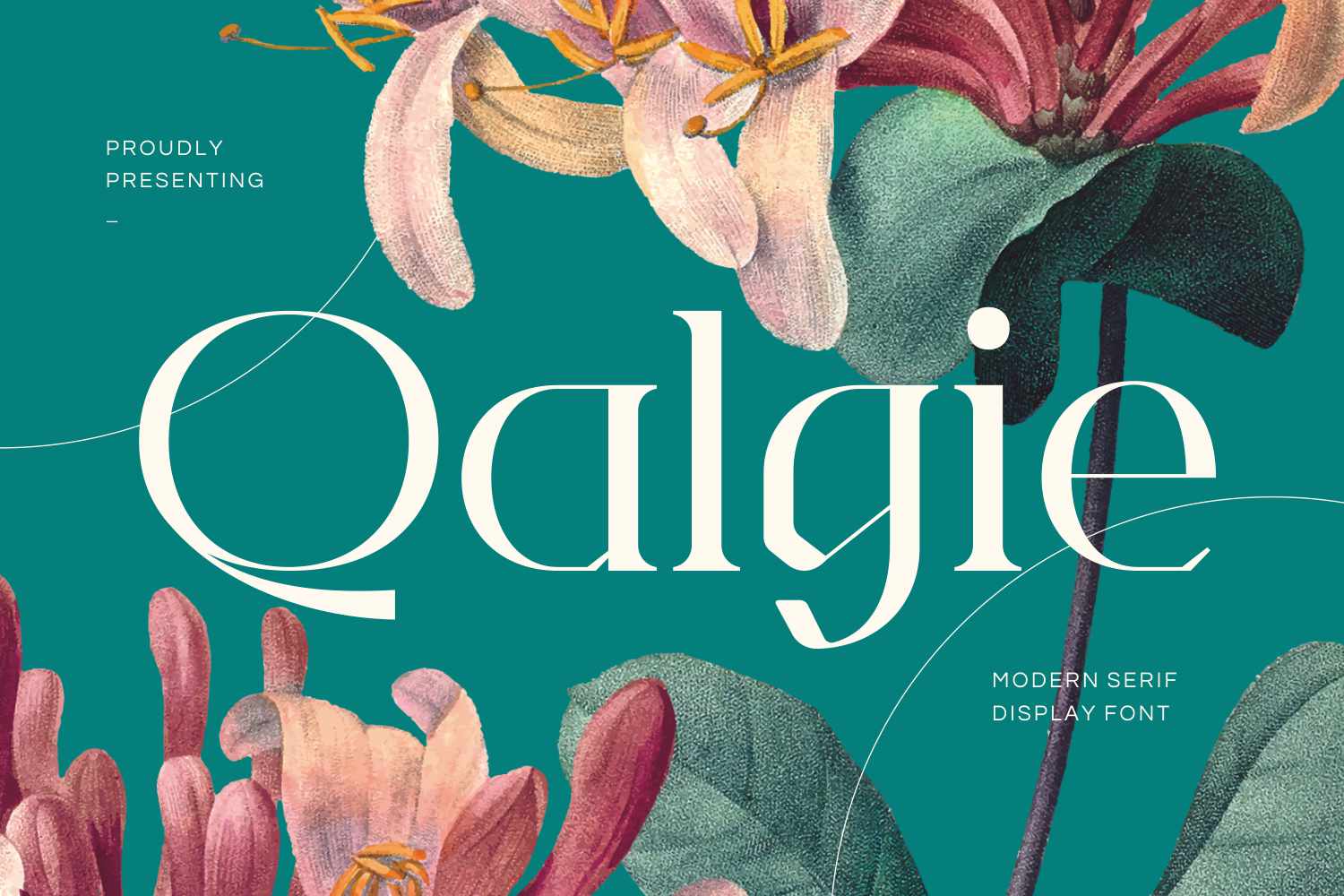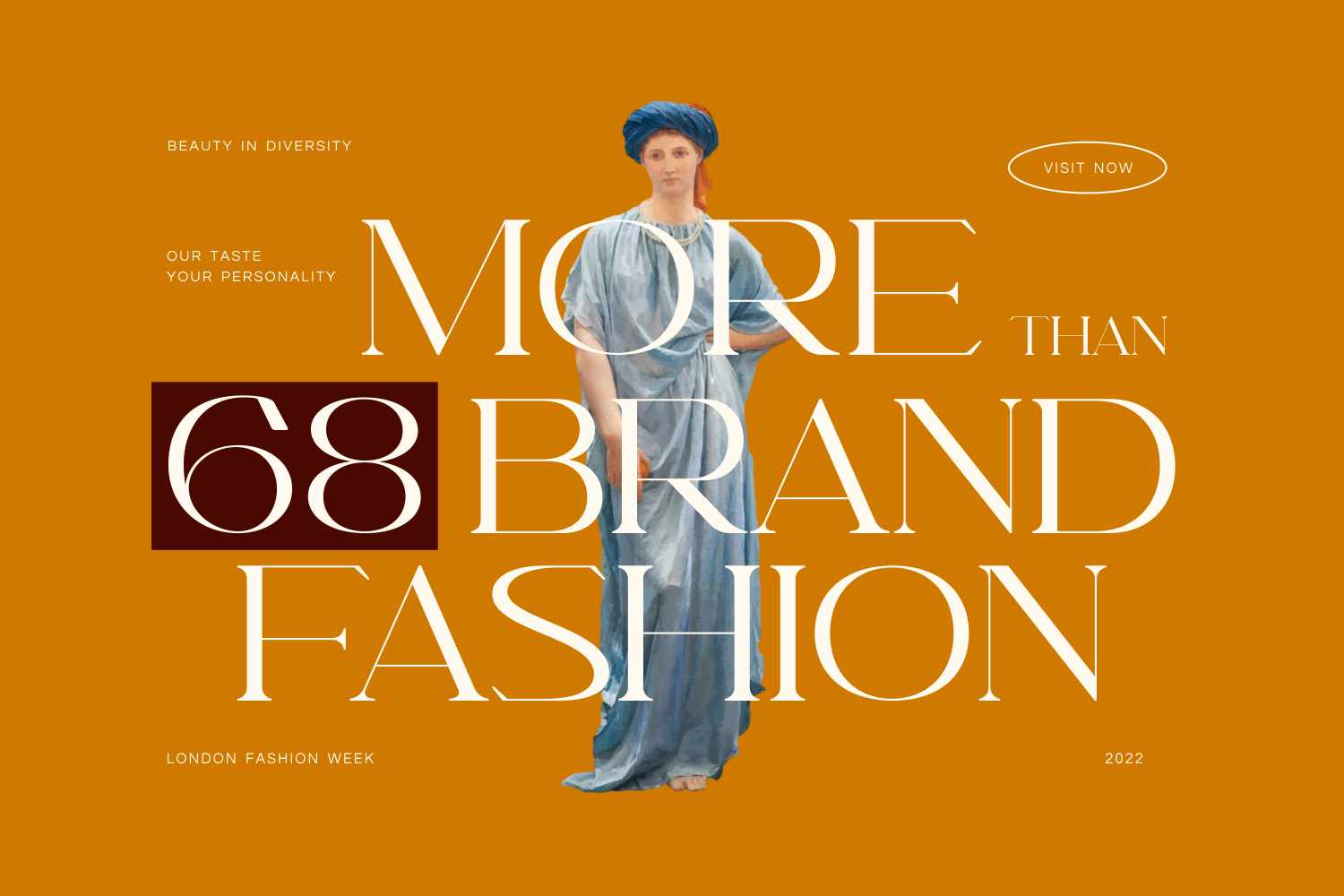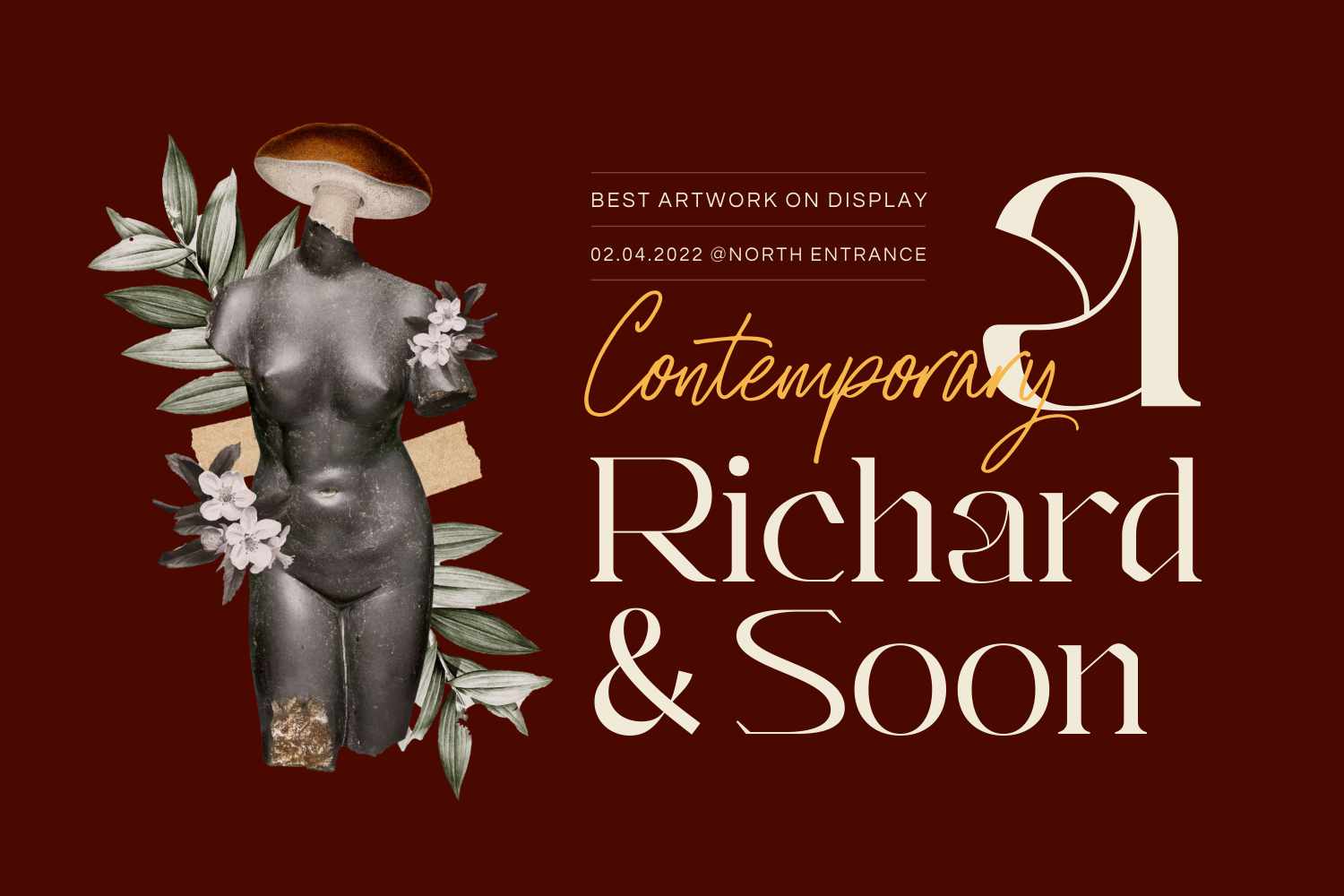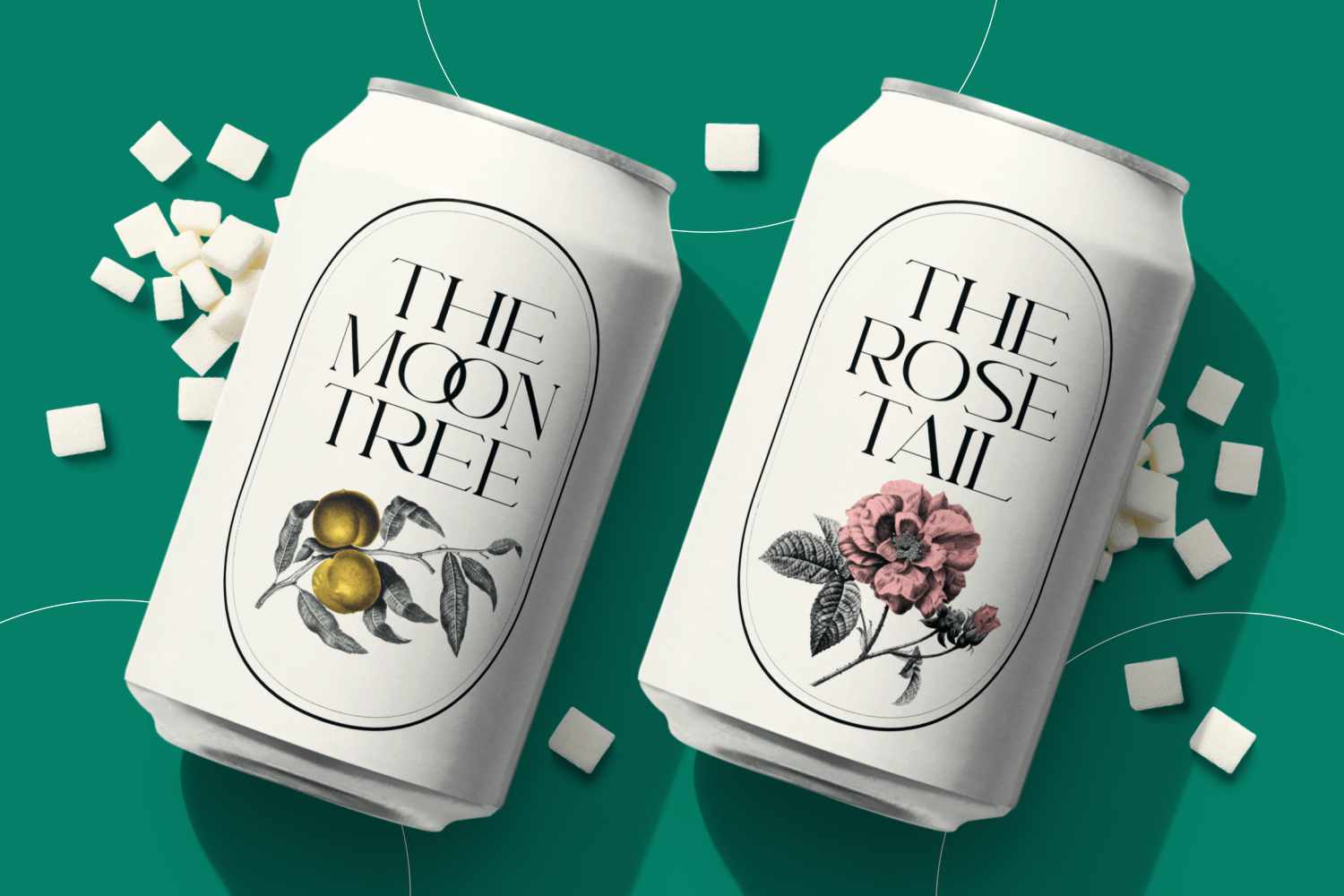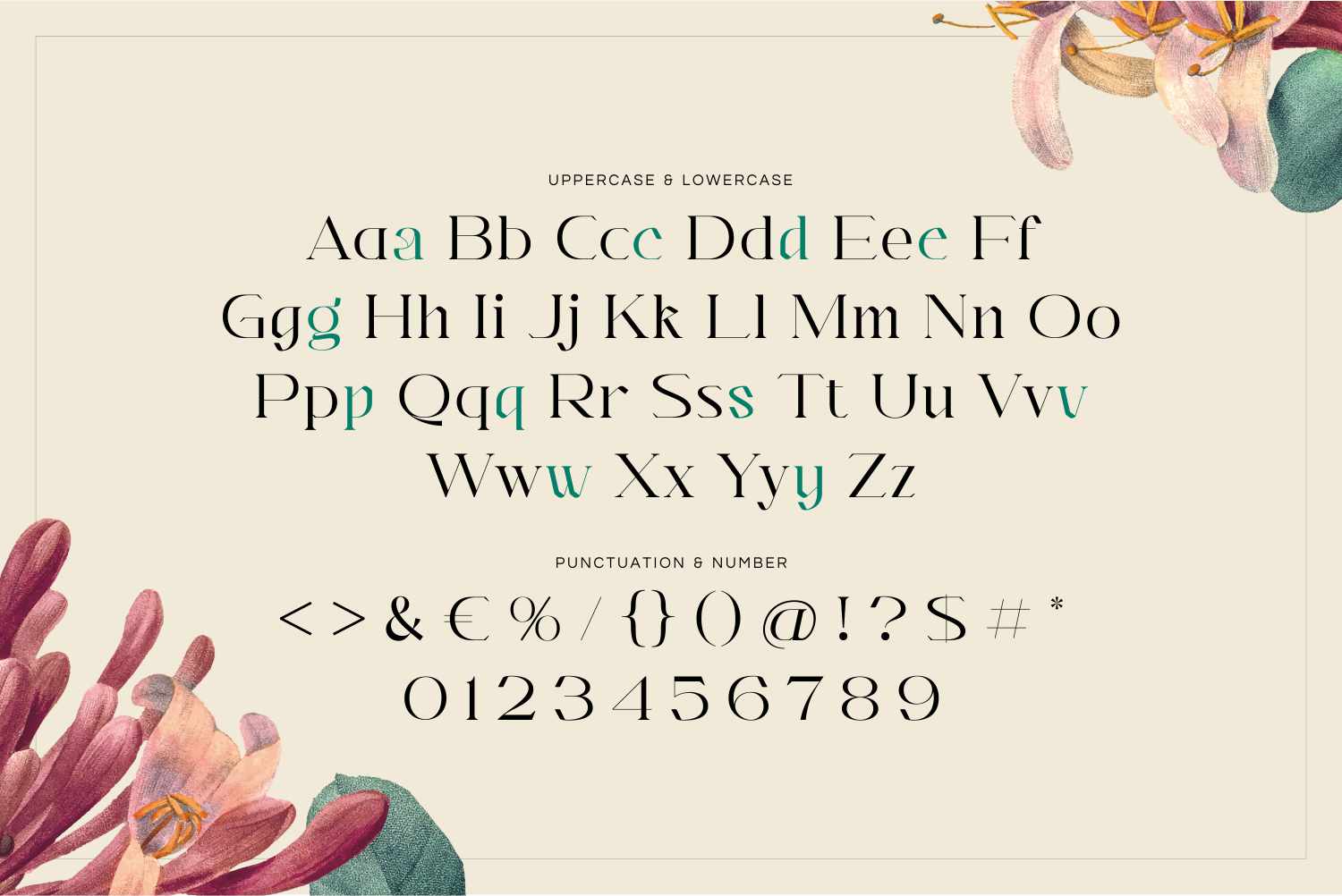
Qalgie is a modern serif display font that blends sophistication with artistic flair. Featuring elegant curves, sharp contrasts, and refined alternates, Qalgie is perfect for fashion editorials, upscale branding, and luxurious packaging. Each character has been thoughtfully designed to embody both classic beauty and contemporary precision, creating a seamless blend of old-world charm and modern minimalism.
The font includes a full set of uppercase and lowercase letters, numbers, punctuation, and special ligatures to provide designers with flexibility and expressive range. Whether used for magazine headlines, identity logos, or product labels, Qalgie delivers an unmistakably chic and refined typographic experience.